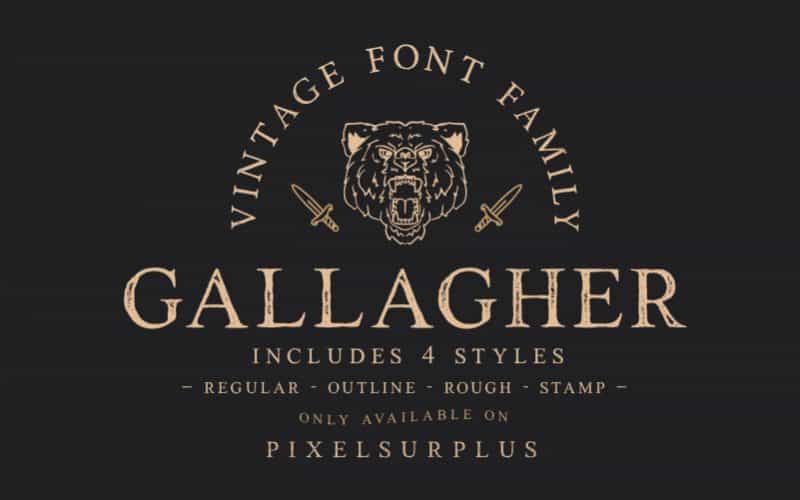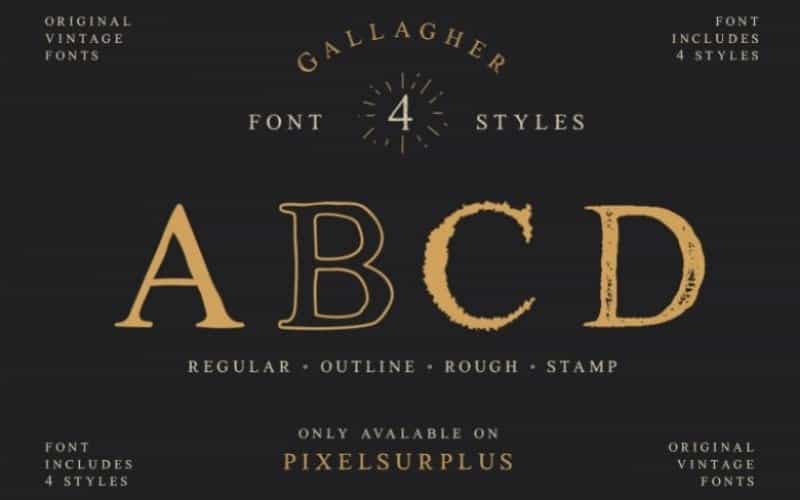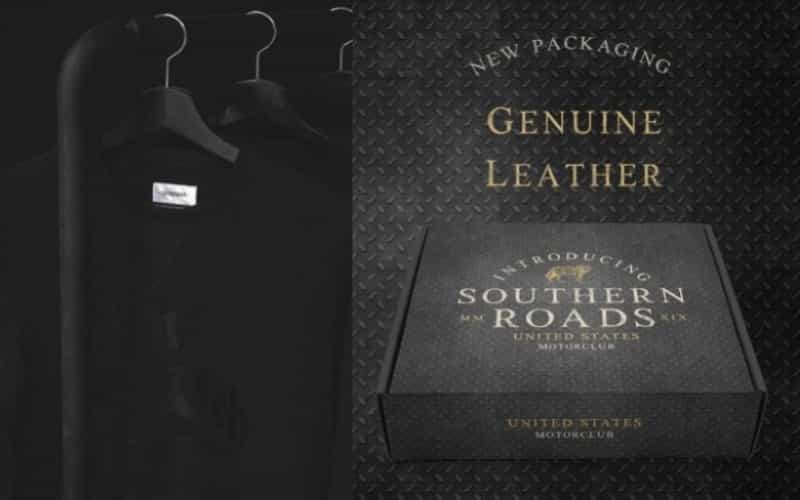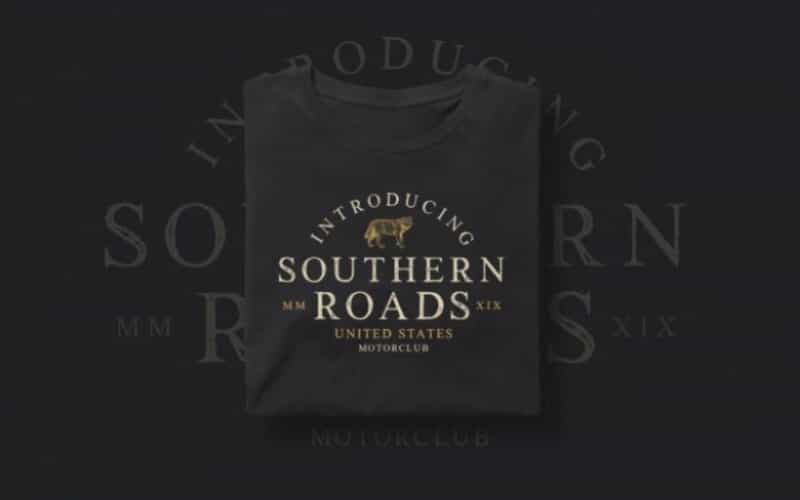
Gallagher Vintage Font
Gallagher has an old-fashion charm. With its innate appeal, plus four distinctive styles——Regular, Rough, Stamp & Outline—It yields flexible vintage or industrial-themed effects.